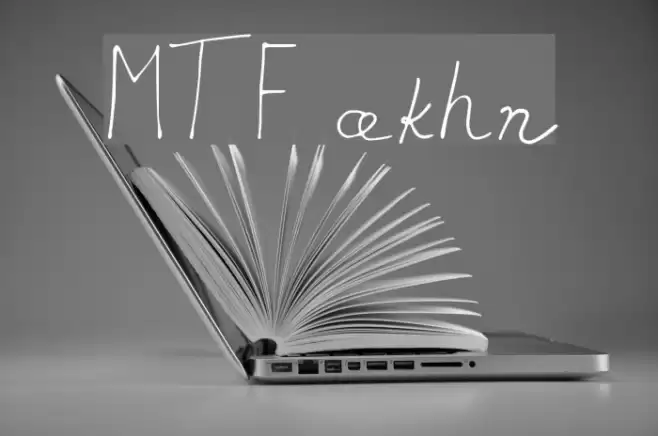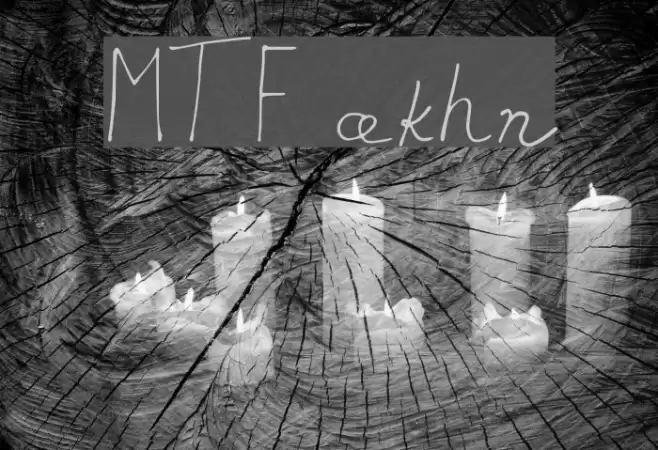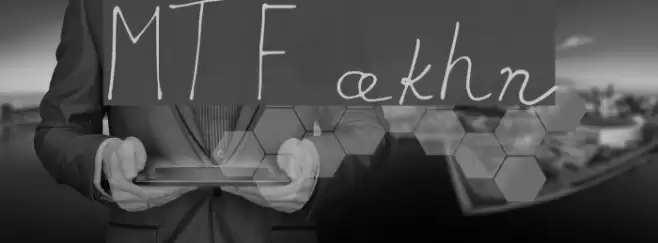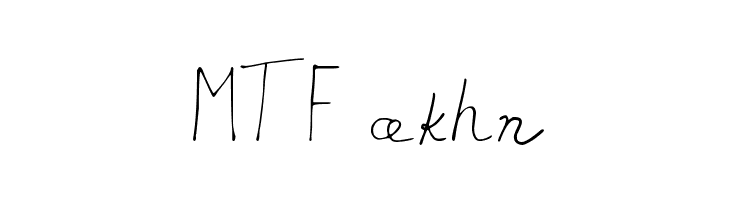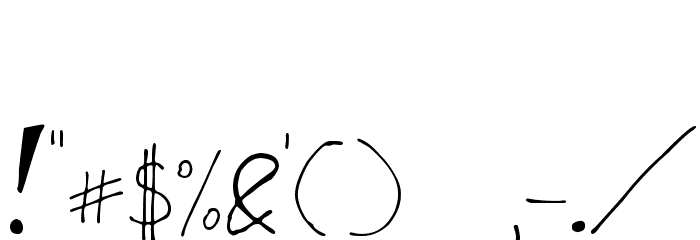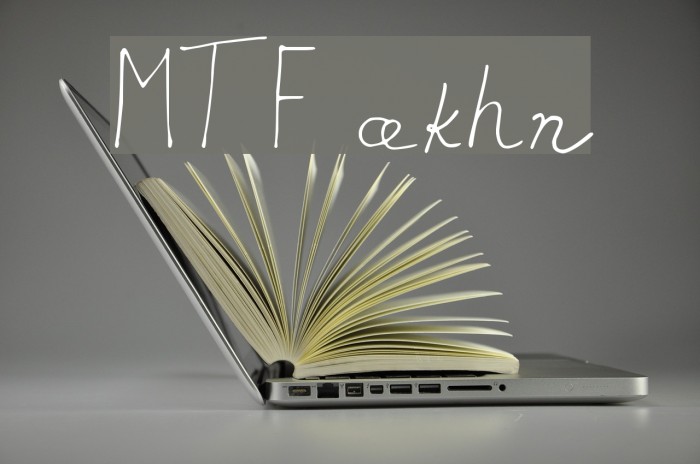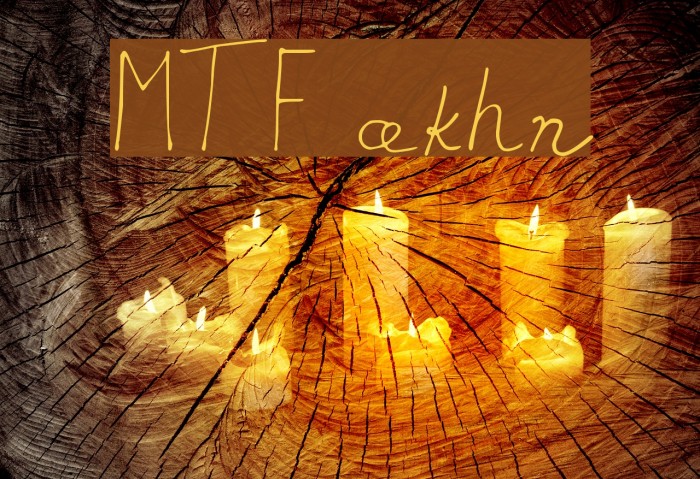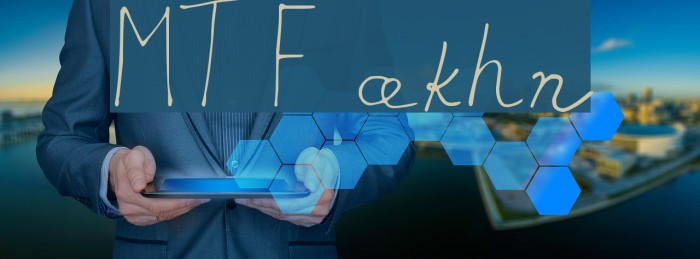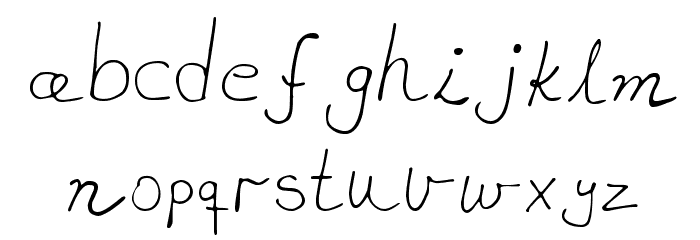
MTF akhn Font
MTF akhn Description
This font features a playful and informal handwritten style, characterized by its irregular strokes and casual appearance. The uppercase letters are tall and slightly narrow, with a whimsical touch that adds personality. The lowercase letters maintain a consistent flow, with some letters like 'g' and 'j' having distinctive loops. The numbers are quirky, matching the overall informal theme. Special characters are creatively designed, adding to the font's unique charm. This font is perfect for projects that require a personal, friendly touch, such as greeting cards, invitations, or casual branding.
A playful, informal handwritten font with quirky, irregular strokes from Uncategorized fonts.
- Proposed Projects: Greeting cards, invitations, casual branding, personal notes, and creative projects.
- Overall Style: Casual, Playful
- Use Case: Headlines, Logos, Informal text